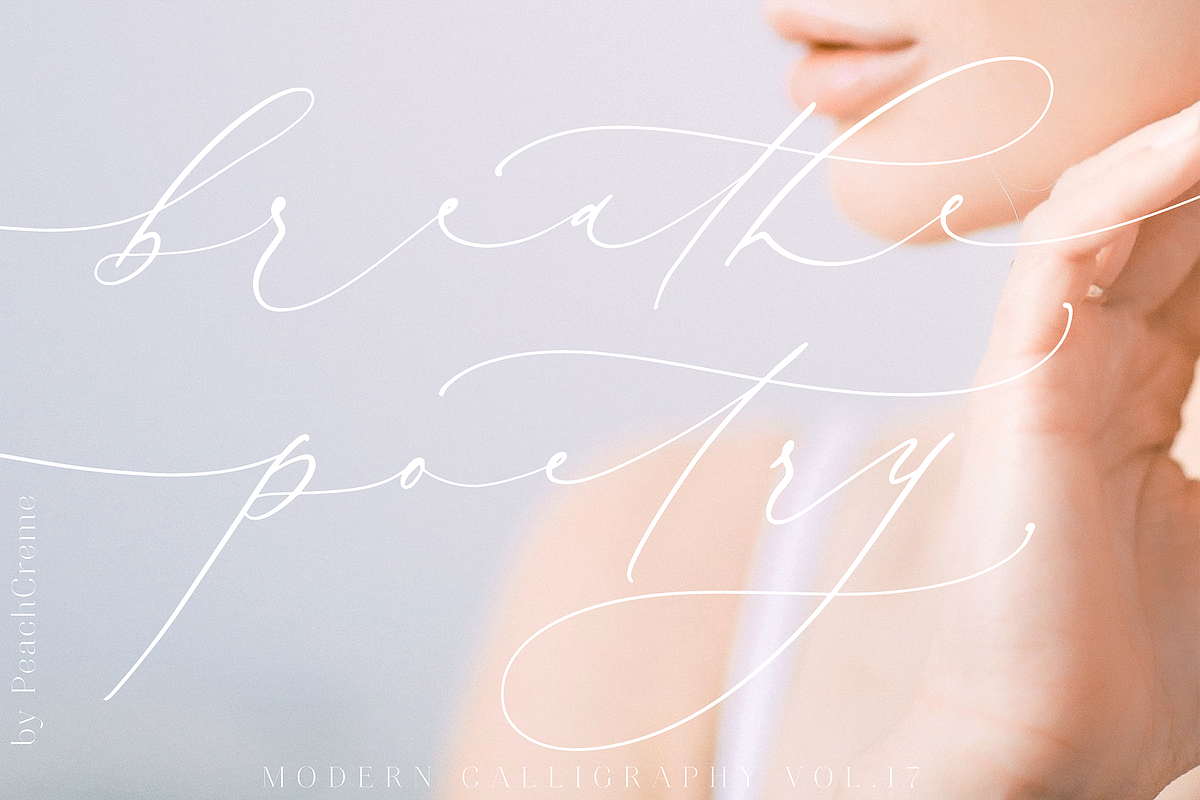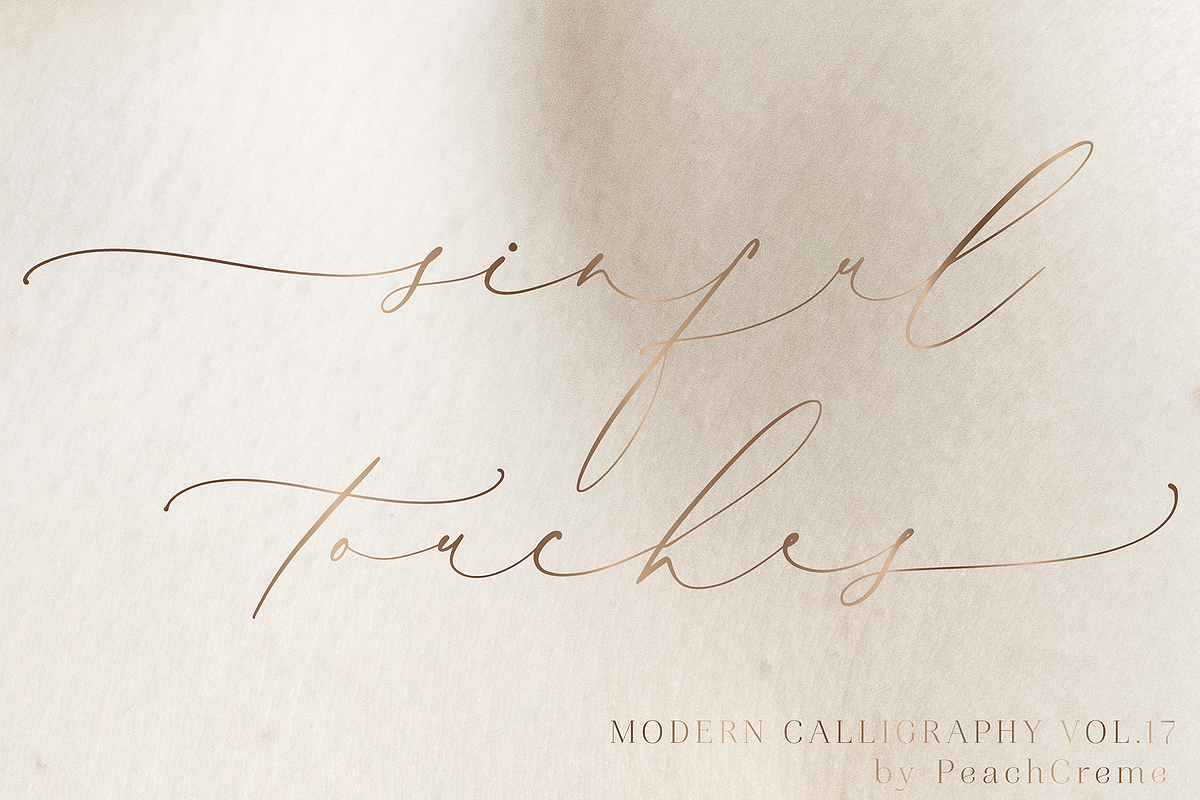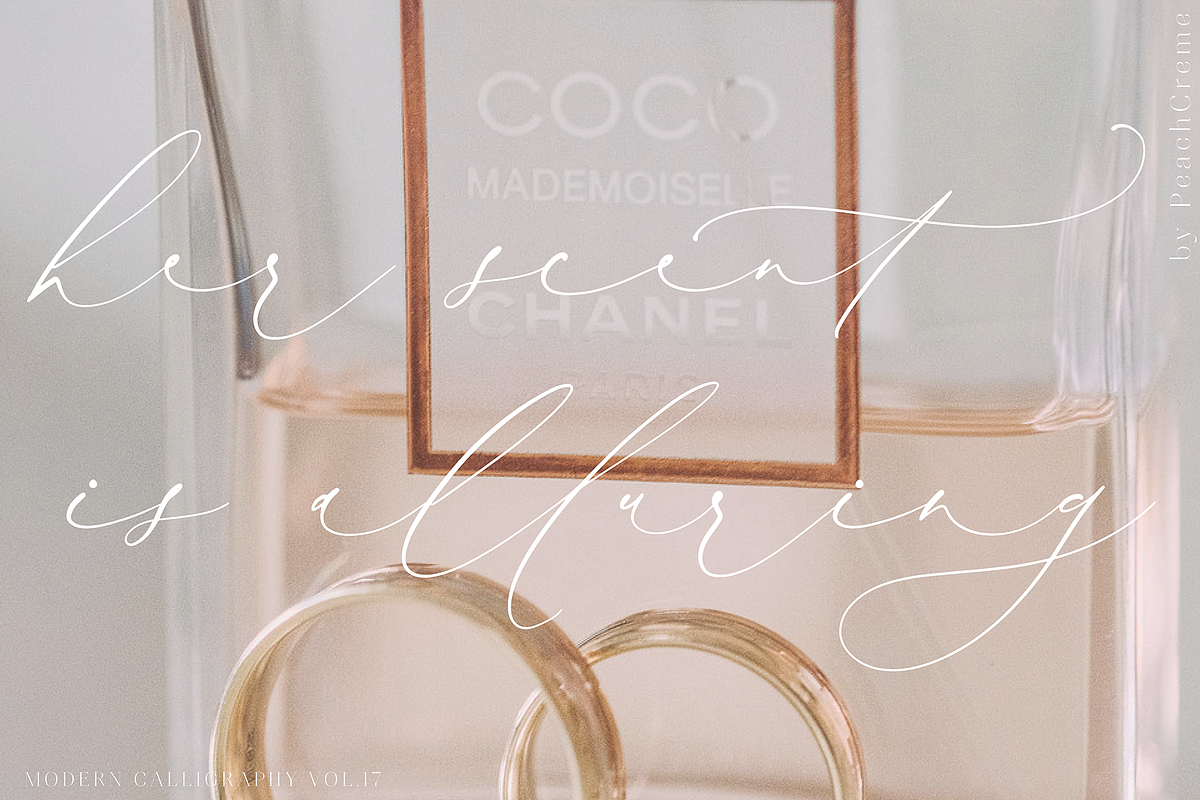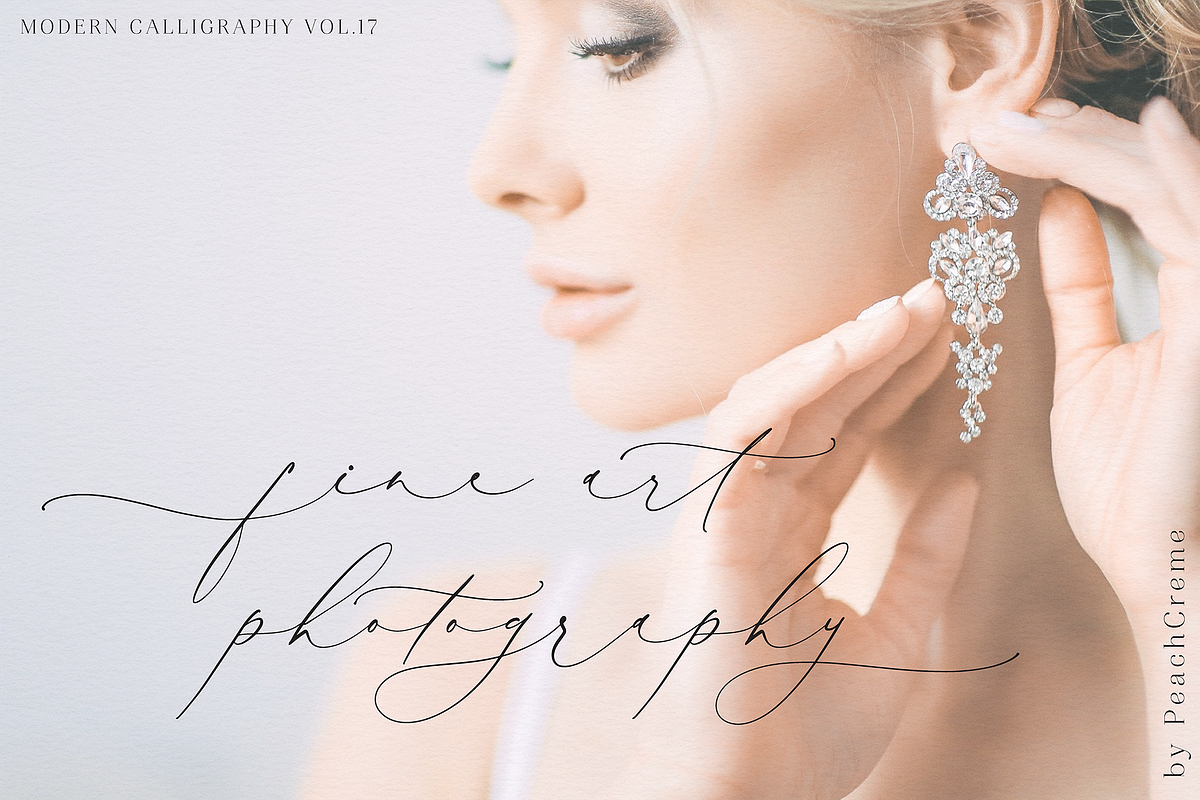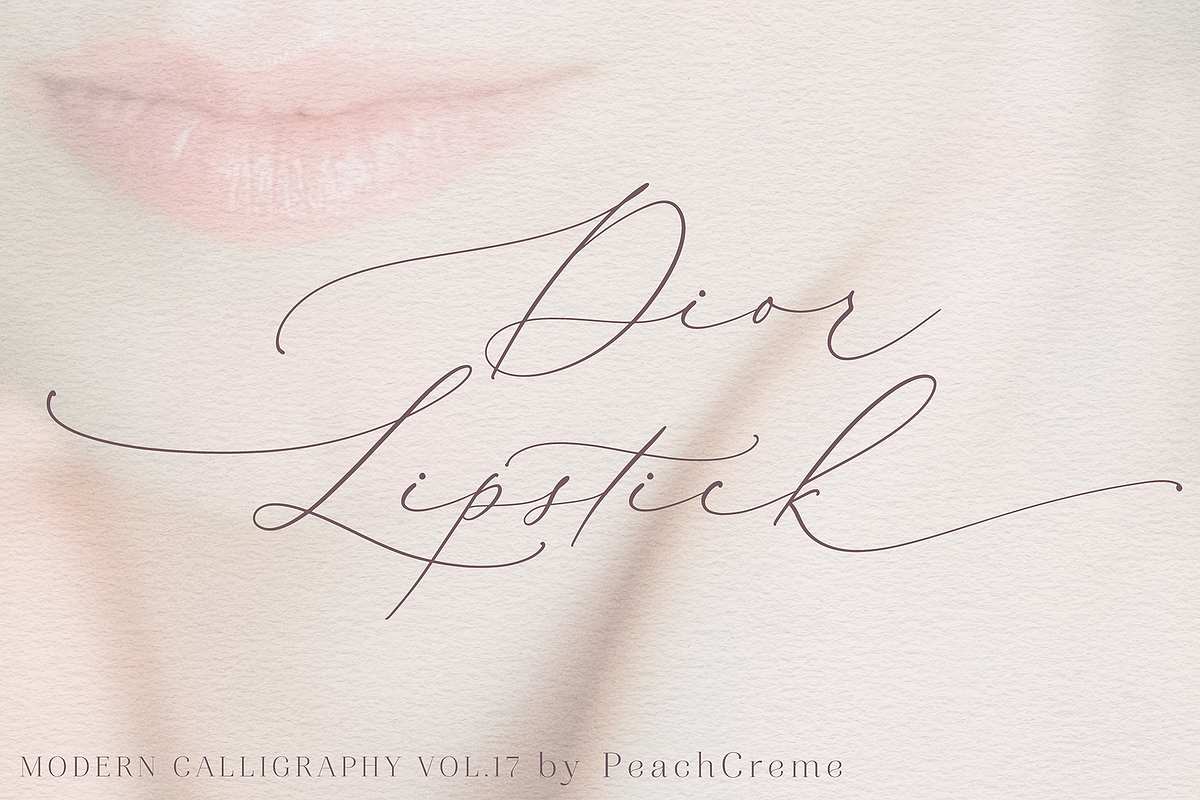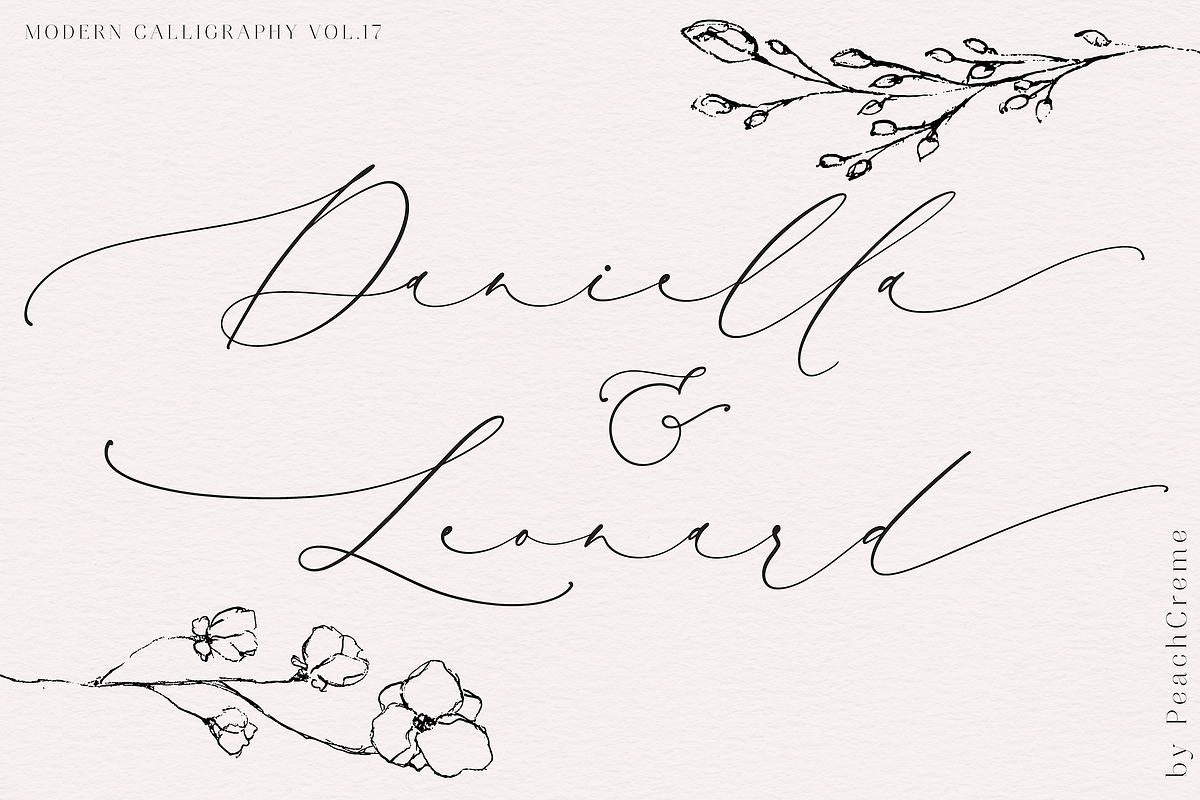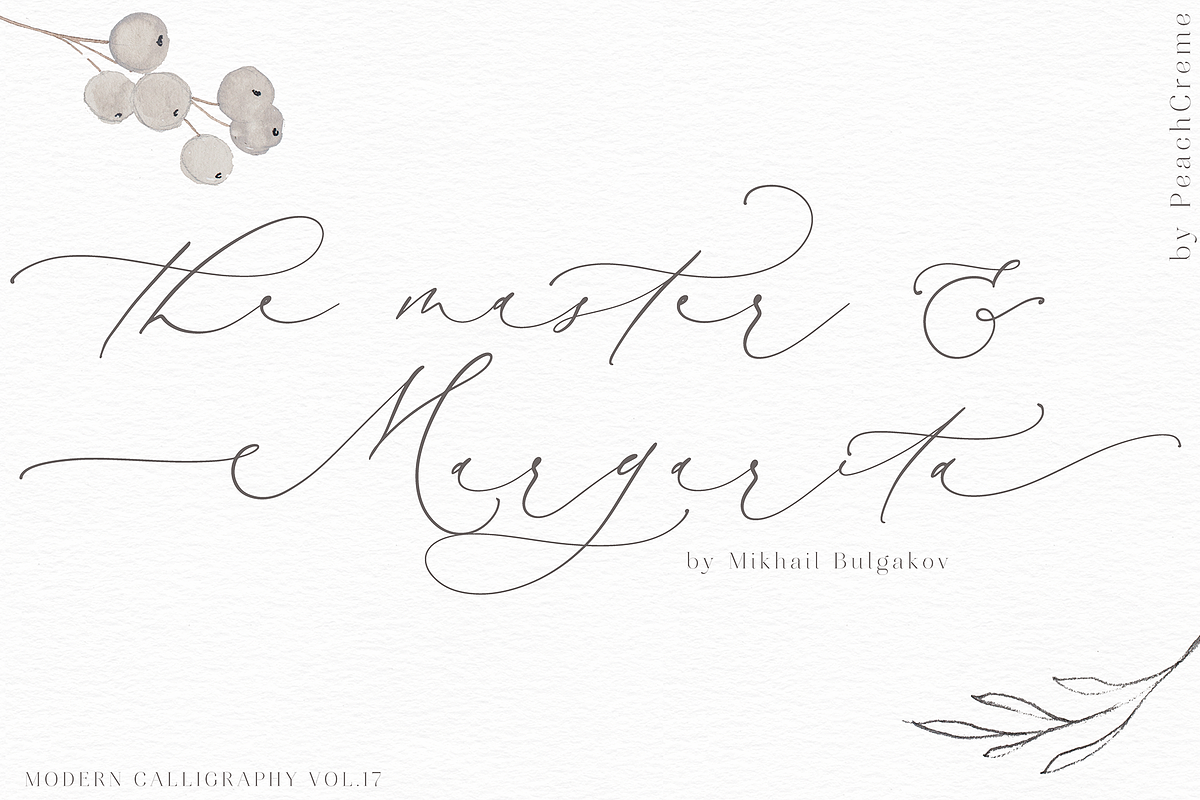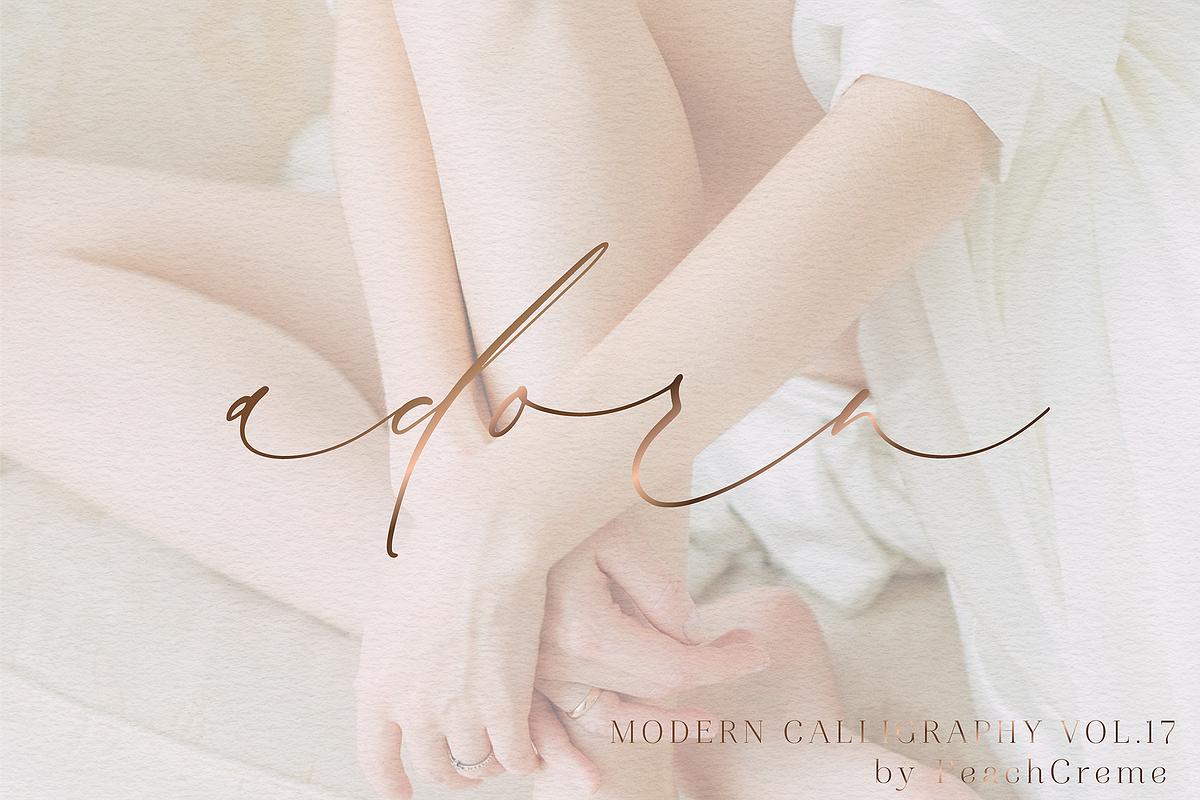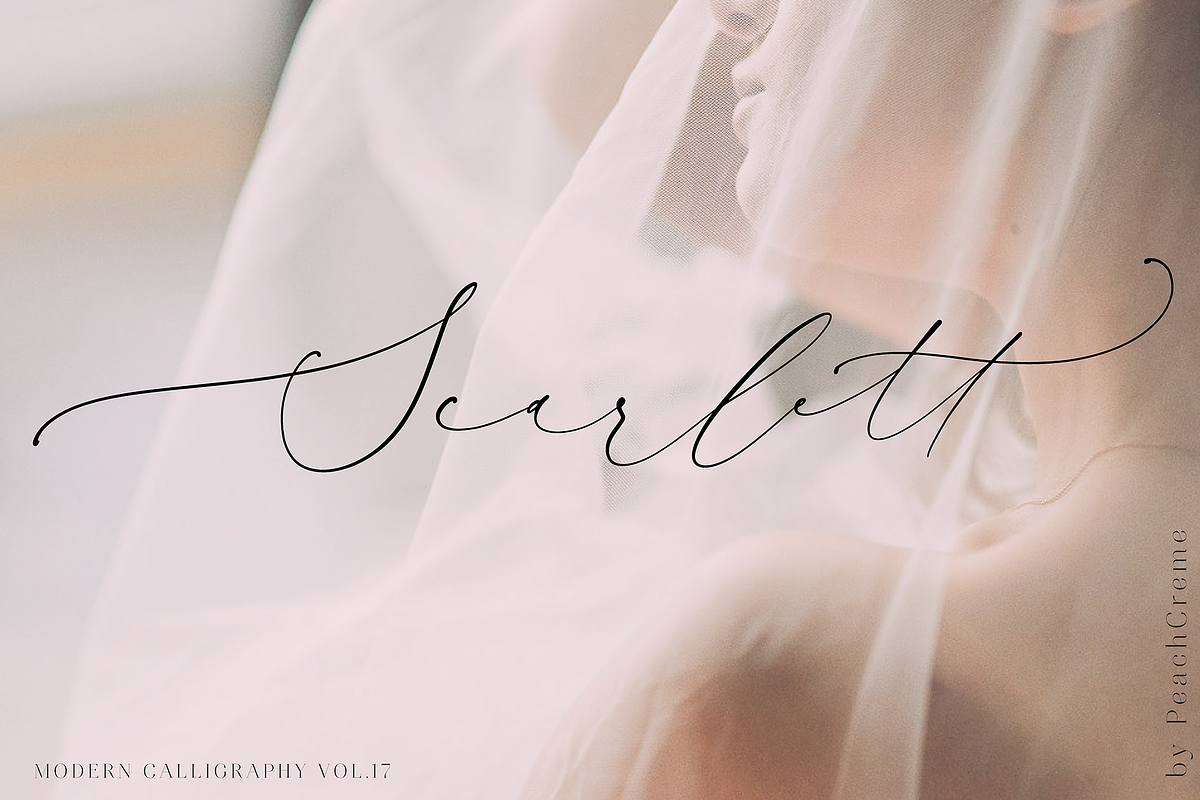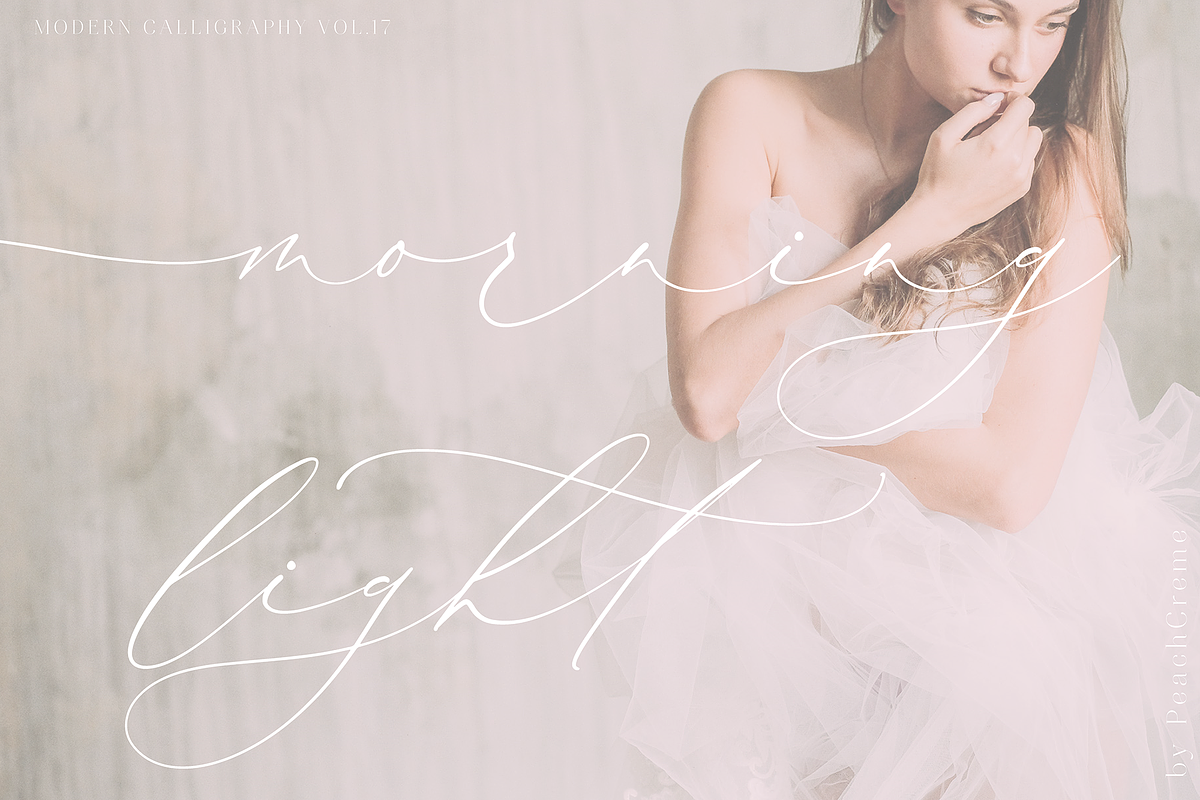
Breathe Poetry // Modern Calligraphy
LUXURY FINE ART TYPOGRAPHY VOL.17
Breathe Poetry is a light, refined, crème de la crème modern calligraphy font with contemporary, sophisticated accents. It is perfect for branding, wedding invites and cards.
Breathe Poetry includes full set of gorgeous uppercase and lowercase letters, numerals, a large range of punctuation and ligatures. All lowercase letters include beginning and ending swashes, giving realistic hand-lettered style. All uppercase letters include beginning swashes, that makes the font look fabulous!